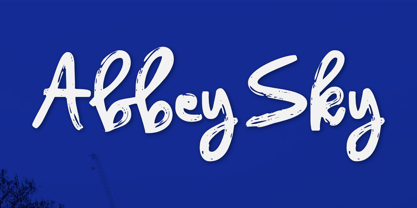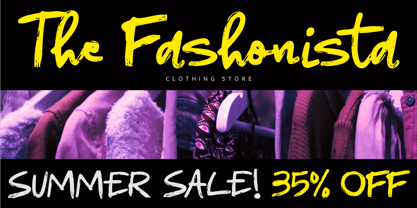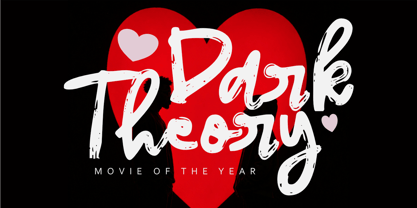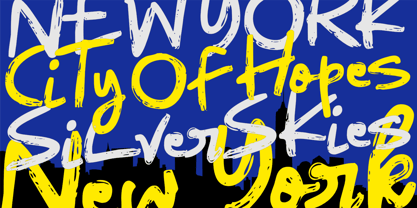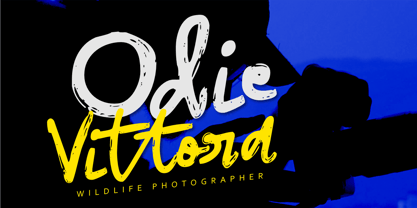
Abbey Sky
by Epiclinez
The Abbey Sky Font Family was designed by Aldy Sidik and published by Epiclinez. Abbey Sky contains 1 styles. More about this family
Abbey Sky is a stylish brush script font with authentic hand-painted strokes and cool textured details that bring a natural signature feel to every design. Crafted with smooth curves and elegant flow, this font is perfect for logo branding, fashion labels, wedding invitations, social media posts, photography watermarks, product packaging, cosmetic branding, café signage, and modern lifestyle projects. Abbey Sky delivers a chic, artistic, and effortlessly classy look that combines modern elegance with handcrafted charm, making your typography stand out with personality and emotion.